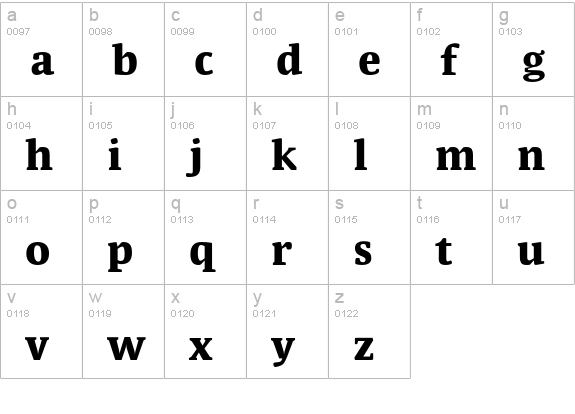
ParableLF-ExtraBold is an extra-heavy, attention-grabbing variant in the ParableLF typeface family \xE2\x80\x94 well suited to high-impact headlines, posters, and bold branding.
ParableLF-ExtraBold font is a stunning and versatile typeface that exudes boldness and confidence. Its strong and powerful letterforms make a lasting impression, capturing attention and conveying a sense of authority. With its thick strokes and sharp angles, ParableLF-ExtraBold commands attention in any design project. Whether you're creating a striking headline or a captivating logo, this font adds a touch of impact and sophistication. What sets ParableLF-ExtraBold apart is not just its aesthetics but also its accessibility. This font is freely available to download at FontsMarket.com, making it easily accessible to designers, creatives, and typographers alike. Its availability ensures that everyone can enjoy the benefits of this exceptional typeface without any barriers. ParableLF-ExtraBold is perfect for a wide range of projects, from branding and advertising campaigns to editorial designs and product packaging. Its versatility allows it to shine in both digital and print media, ensuring that your message is conveyed with clarity and style. Whether you're designing for a corporate client or working on your own passion project, ParableLF-ExtraBold will elevate your design to new heights. Its bold and striking presence will captivate your audience and leave a lasting impression. Download ParableLF-ExtraBold today from FontsMarket.com and experience the power and versatility of this extraordinary font. With its strong and impactful letterforms, it is sure to make your designs stand out and leave a lasting impact on your audience. Don't miss out on this opportunity to enhance your creative endeavors with ParableLF-ExtraBold font – the perfect choice for those seeking to make a bold statement.